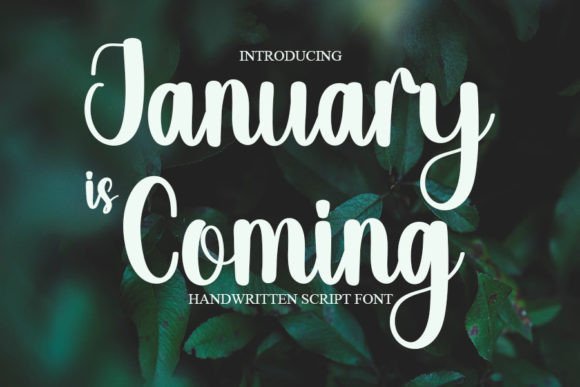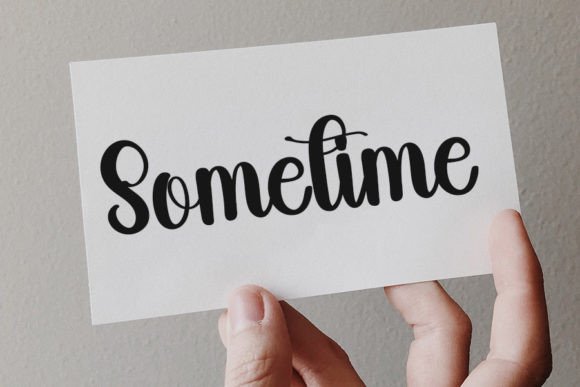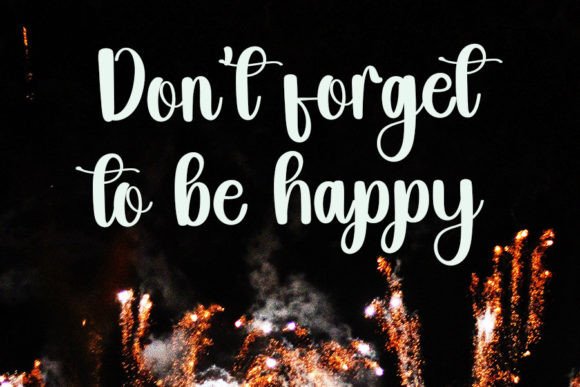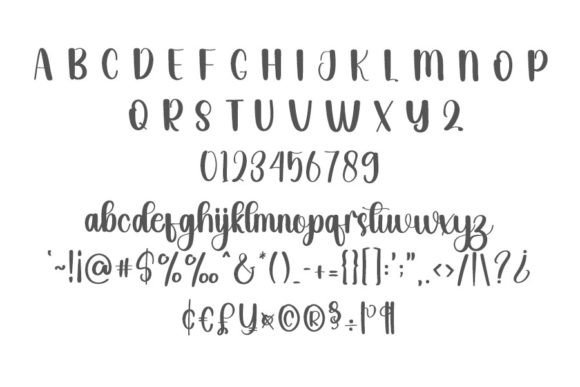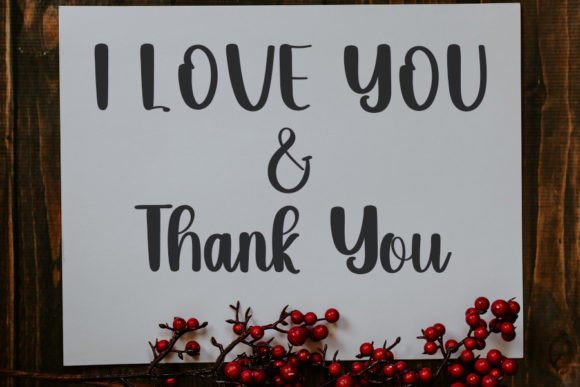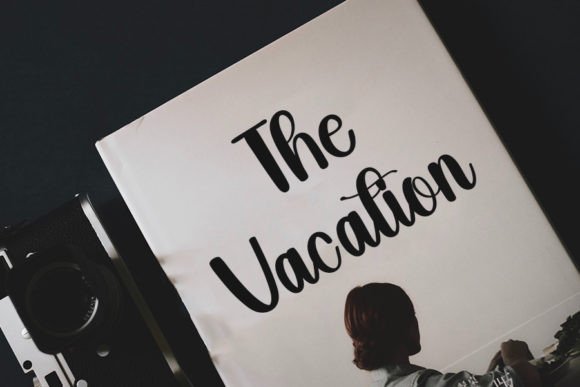
January is Coming Font
About January Is Coming Font
January Is Coming font is a casual and relaxed script font that captures a friendly and approachable vibe. Its versatile style makes it an excellent choice for a wide range of design projects. Whether you want to create stunning wedding invitations, beautiful stationery art, or eye-catching social media posts, this font has the charm and flexibility to elevate your work.
Versatile Script for Various Uses
This font shines across multiple applications. You can use January Is Coming for wedding invitations to add a warm and inviting feel. It also works wonderfully for stationery design, giving a handmade and personal touch. Additionally, the font stands out in digital spaces like social media posts, helping your content gain attention with its relaxed and natural style.
Friendly and Relaxed Style
January Is Coming has a smooth, flowing look that feels casual but elegant. Its handwritten nature makes it approachable while maintaining a polished appearance. The balance of casual charm and clean lines ensures your designs look both stylish and easygoing.
Perfect for Creative Projects
Besides invitations and social media, January Is Coming suits branding materials, greeting cards, logos, and more. Its readability and personality add warmth to your projects, making it a favorite among designers who want to combine professionalism with friendliness.
Why Choose January Is Coming Font?
Choosing January Is Coming font means opting for versatility and charm. It is easy to pair with other fonts and fits both formal and informal designs. This font adds a personal touch that helps your creations feel unique and inviting.
Make Your Designs Stand Out
Use January Is Coming font to bring a relaxed elegance to your next design. Whether for print or digital, it will enhance your work and captivate your audience.